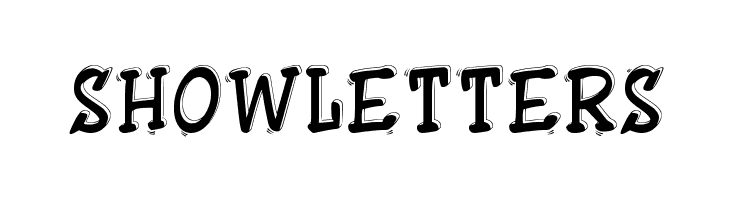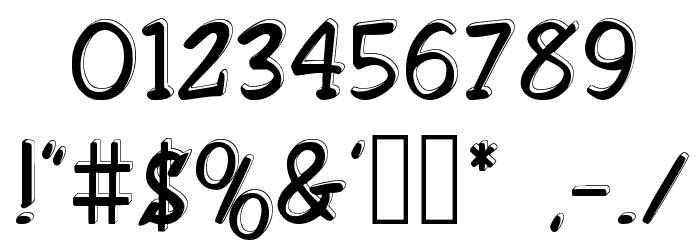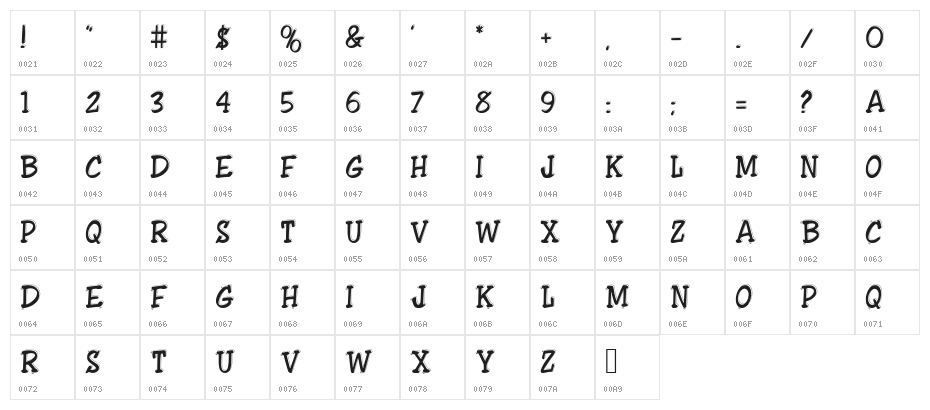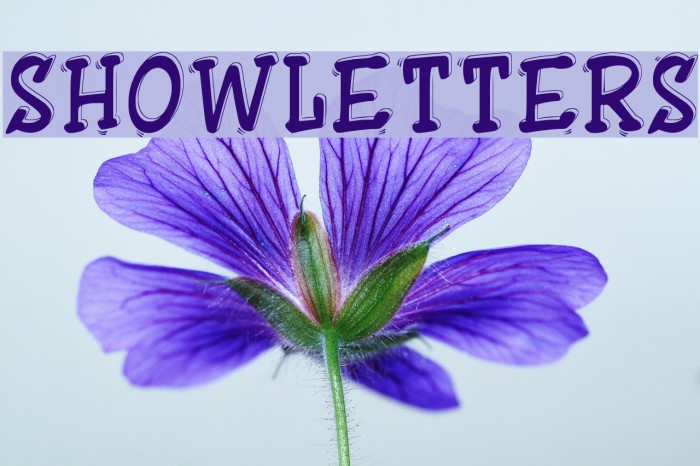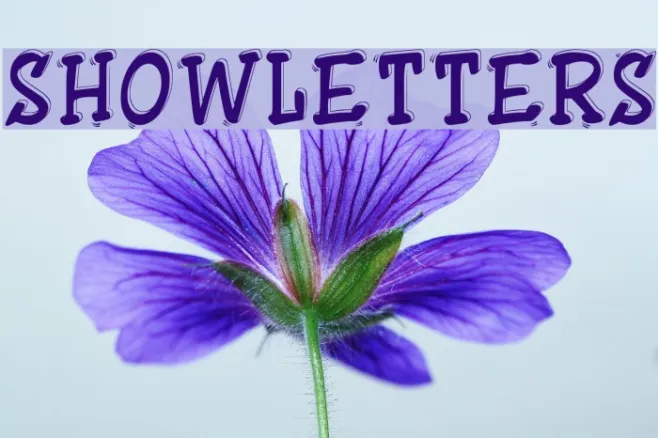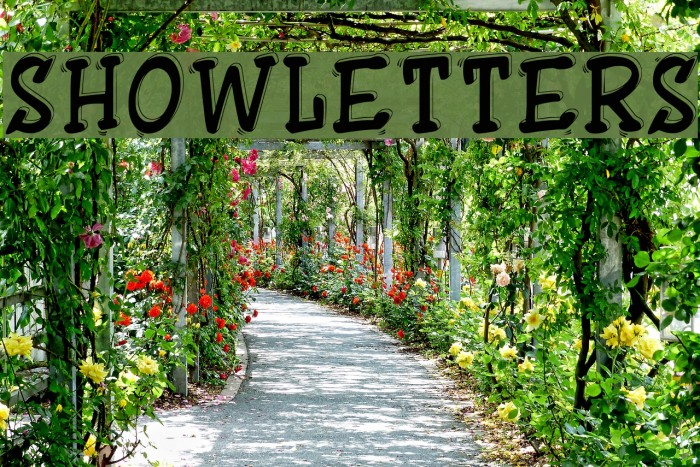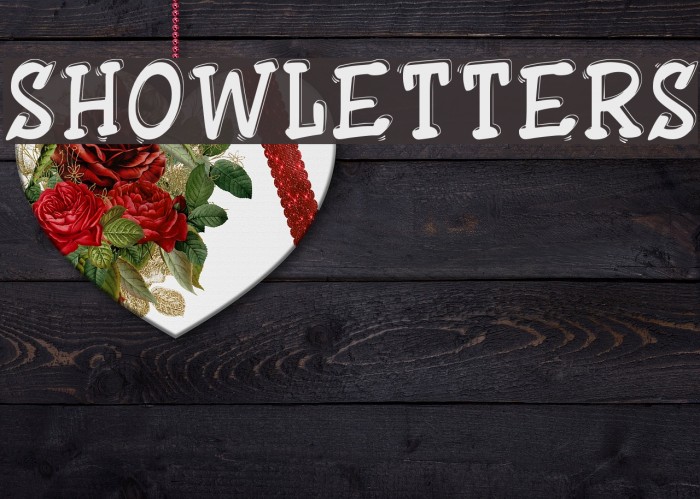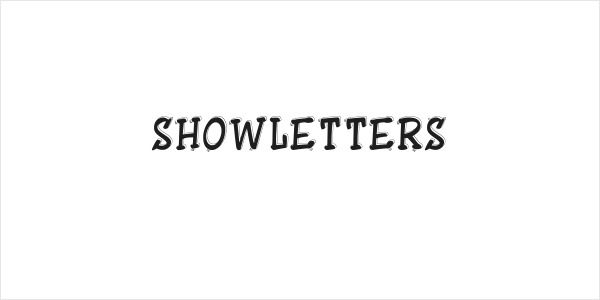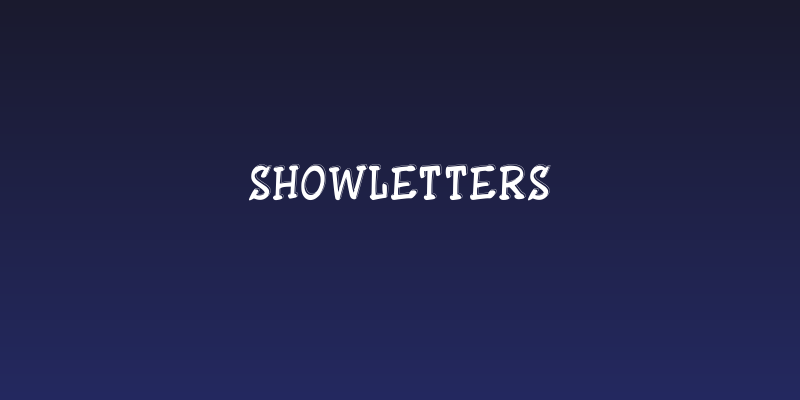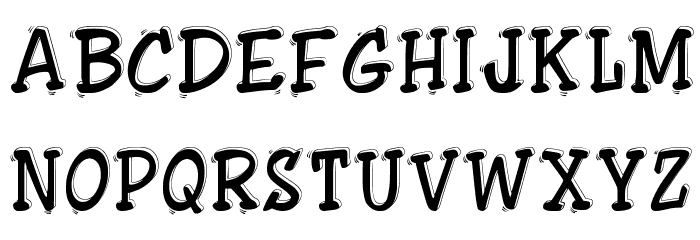
ShowLetters Font
ShowLetters Description
This font features a playful and bold design with a distinct outline around each character, giving it a three-dimensional appearance. The letters are slightly slanted, adding a dynamic and energetic feel. The strokes are thick, with rounded edges that soften the overall look. The font maintains a consistent weight throughout, ensuring readability while still offering a unique style. It includes a full set of uppercase and lowercase letters, numbers, and a variety of special characters, making it versatile for different uses.
| Overall Style | Playful, Energetic |
| Proposed Projects | Ideal for children's book covers, playful branding, posters, and creative advertising campaigns. |